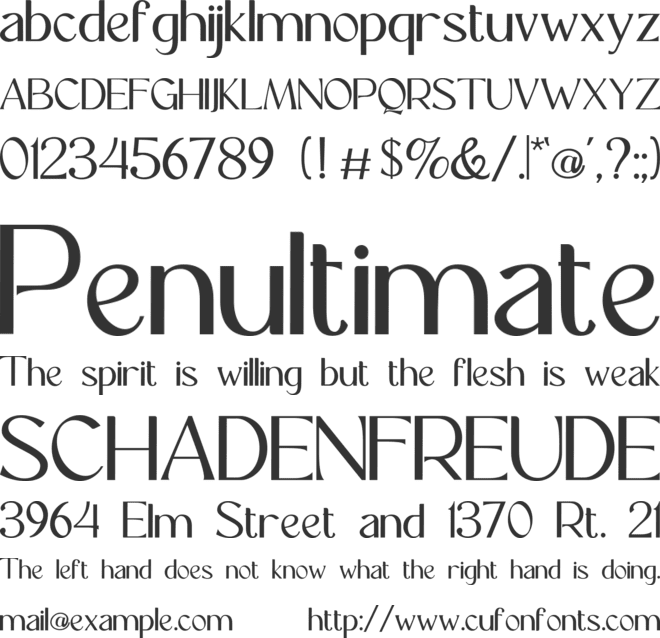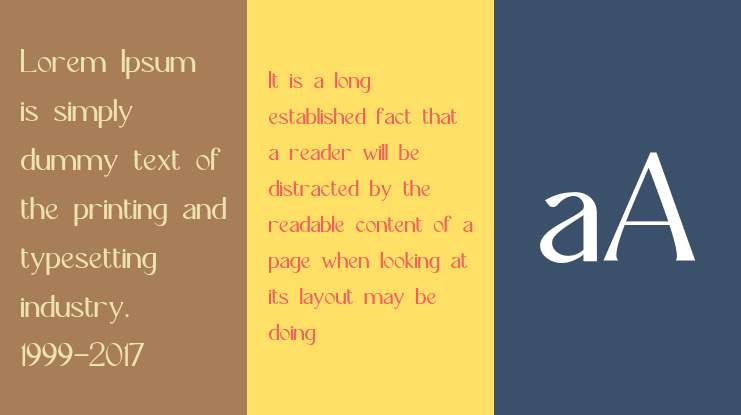
ZADOBESY Font
ZADOBESY, an elegant sans serif font crafted with Precision nodes for a modern, minimalist and casual touch for everything from branding and social media to invitations and packaging.